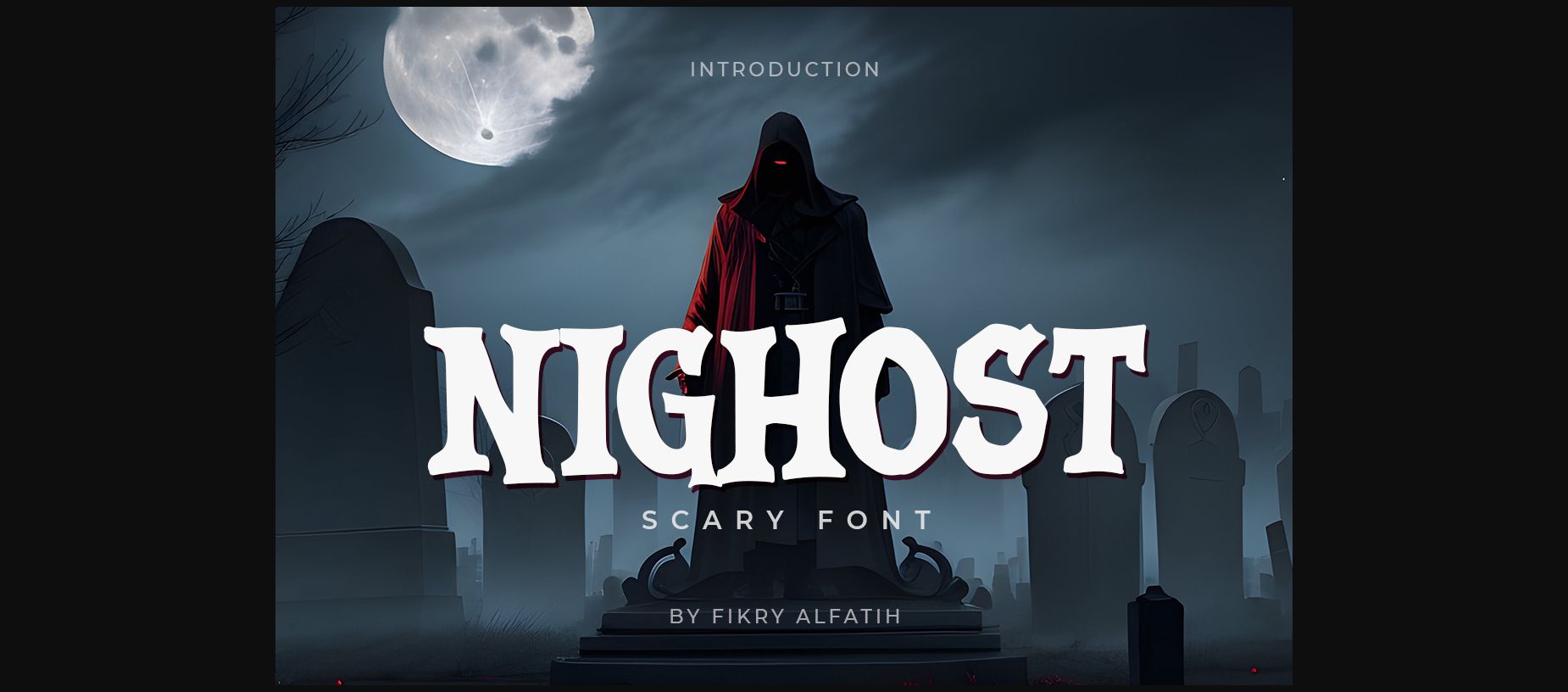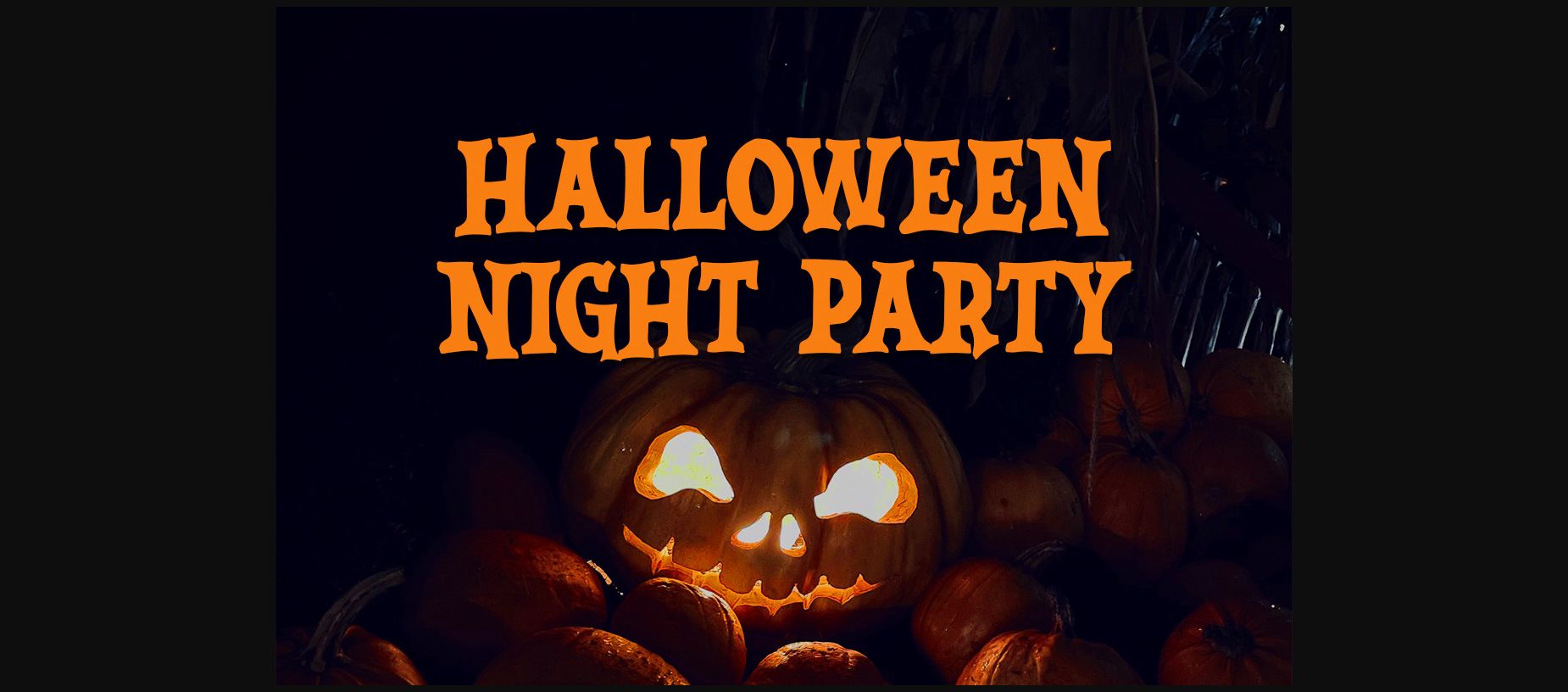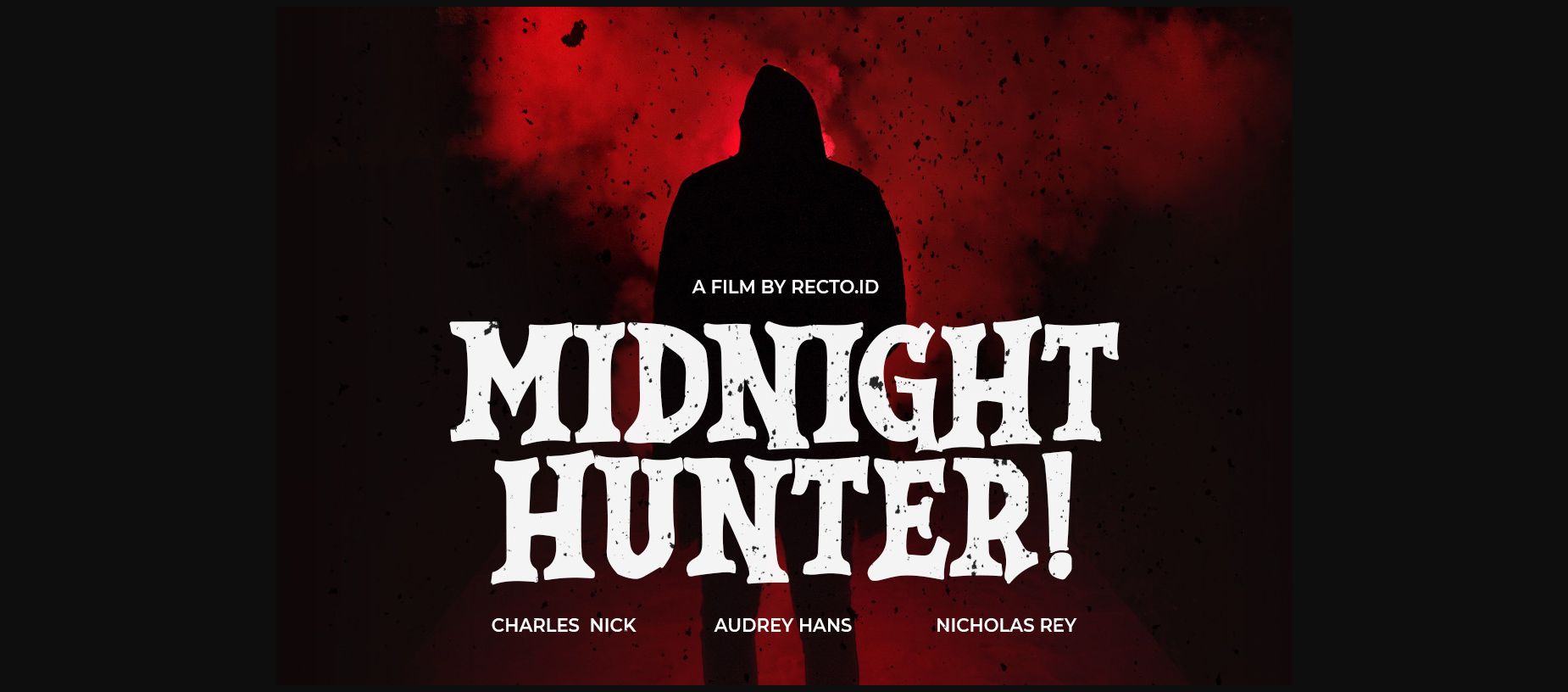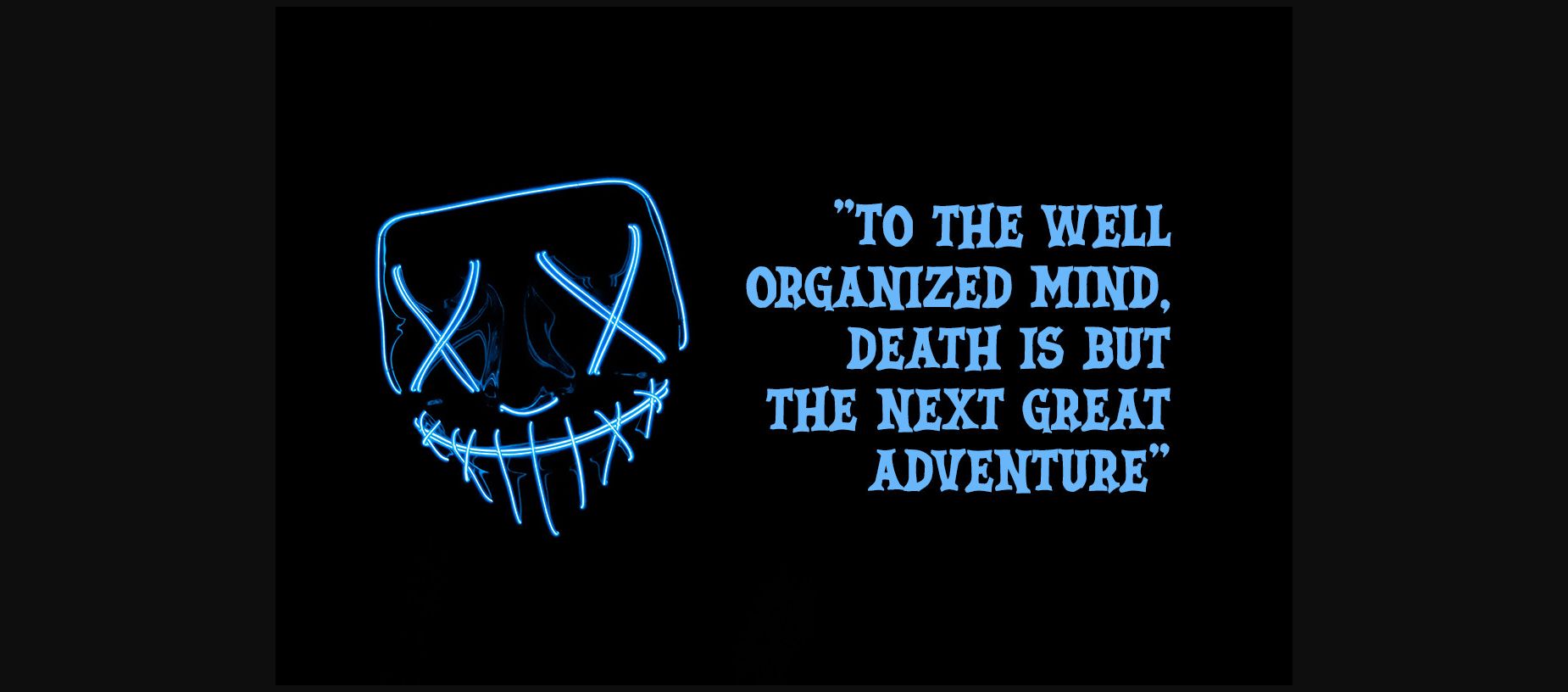
Nighost Font
About Nighost Font
Nighost is a font created to complement your Halloween party, and various other projects such as posters, labels, logos, movie titles, greeting cards, novels and much more.